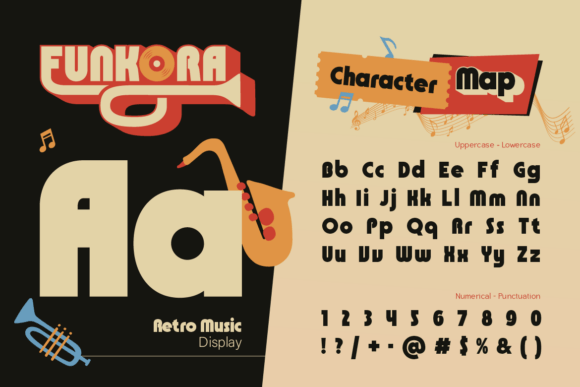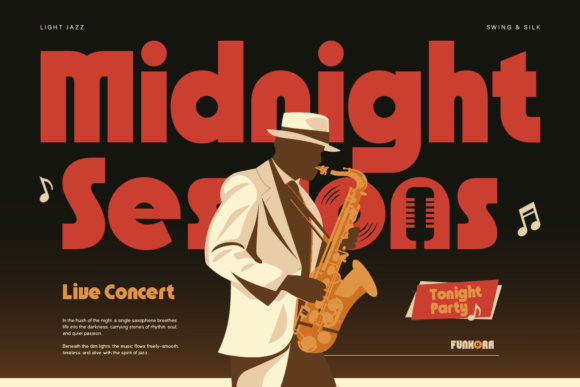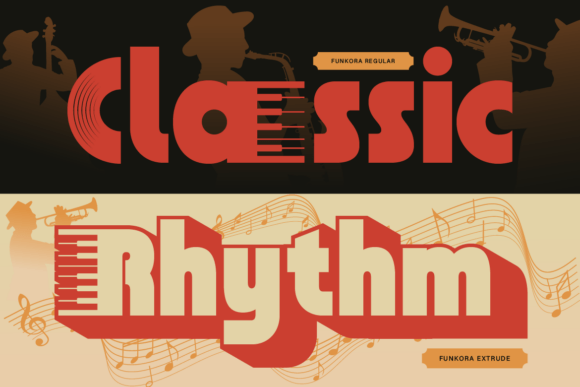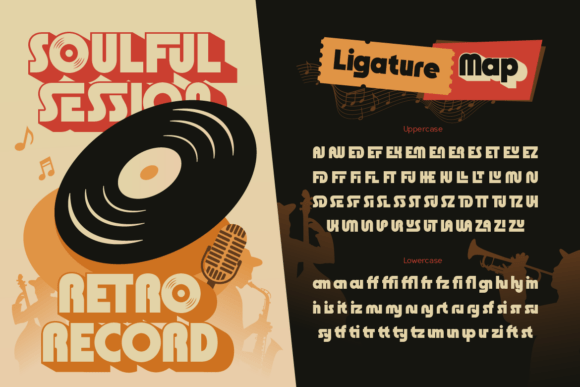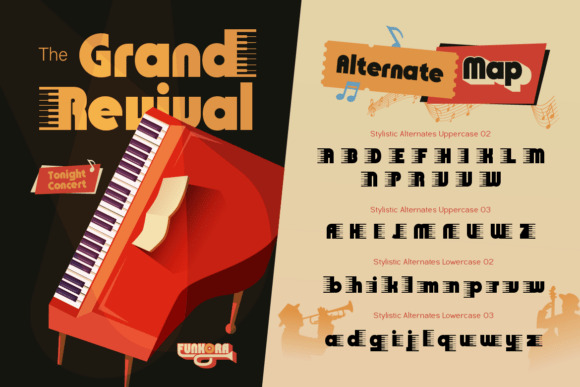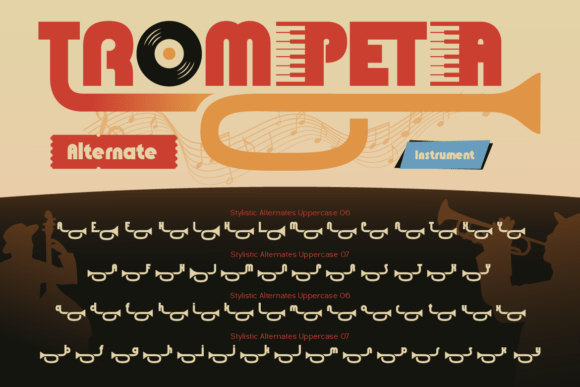
Introducing Funkora Font: The Ultimate Retro Display Font for Music-Inspired Designs
There’s something undeniably magical about the sound of vinyl spinning, the warm crackle of jazz in the air, and neon lights glowing through the night. It’s a sensory experience that instantly transports us back to a bygone era, one that’s deeply rooted in retro music culture, funky rhythms, and the timeless groove of classic records. For designers and crafters looking to capture the essence of this era, Funkora Font is the perfect solution.
Born from the Spirit of Retro Music Culture
Funkora was born from that moment of inspiration, a font that embodies the bold, vibrant, and playful spirit of retro music. With its chunky letterforms, smooth curves, and playful rhythm, Funkora instantly captures attention and delivers a nostalgic yet fresh look that’s perfect for designs that want to stand out loud and proud.
A Bold Retro Display Font with a Modern Twist
Funkora is a bold retro display font that brings strong vintage vibes with a modern twist. Its unique design makes it perfect for a wide range of applications, from music posters and album covers to retro branding and logos, event flyers and concert visuals, merchandise, and social media graphics.
Key Features of Funkora Font
- Comprehensive Character Set: Funkora includes an A-Z set (uppercase and lowercase), numbers, punctuation, alternates, and ligatures, ensuring that you have everything you need to create stunning designs.
- Multilingual Support: With multilingual support, Funkora is perfect for designers and crafters who work with clients from diverse linguistic backgrounds.
Funkora is the perfect choice for designers and crafters looking to add a touch of retro flair to their designs. Here are some of the many ways you can use Funkora:
- Music Posters & Album Covers: Create eye-catching posters and album covers that capture the essence of retro music culture.
- Retro Branding & Logos: Add a touch of vintage charm to your brand’s logo and marketing materials.
- Event Flyers & Concert Visuals: Create stunning event flyers and concert visuals that showcase your design skills.
- Merchandise: Design unique and eye-catching merchandise, such as t-shirts, stickers, and more.
- Social Media Graphics: Create engaging social media graphics that stand out from the crowd.
- Vintage & Funky Design Projects: Add a touch of retro flair to your design projects, from brochures to packaging.
Why Choose Funkora Font?
With Funkora Font, you get more than just a font – you get a design solution that’s both versatile and stylish. Here are just a few reasons why Funkora is the perfect choice for designers and crafters:
- Unique Design: Funkora’s unique design sets it apart from other fonts, ensuring that your designs stand out from the crowd.
- High-Quality: Funkora is a high-quality font that’s designed to deliver exceptional results, whether you’re working on a large-scale design project or a small, personal project.
- Easy to Use: With its comprehensive character set and characters map file, Funkora is easy to use, even for designers and crafters who are new to working with fonts.
Get Ready to Add a Touch of Retro Flair to Your Designs